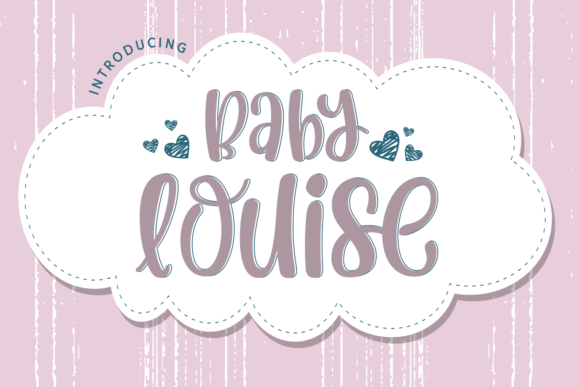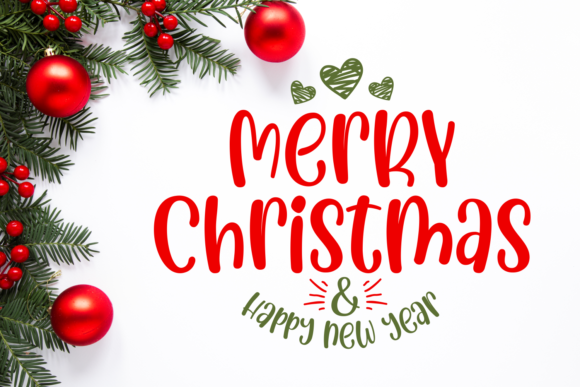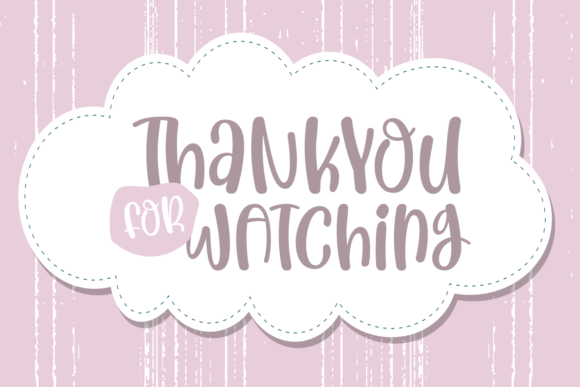
Baby Louise is a cute, casual and a bit quirky display font. Its whimsical style makes this font your top choice no matter the occasion!
Baby Louise Font